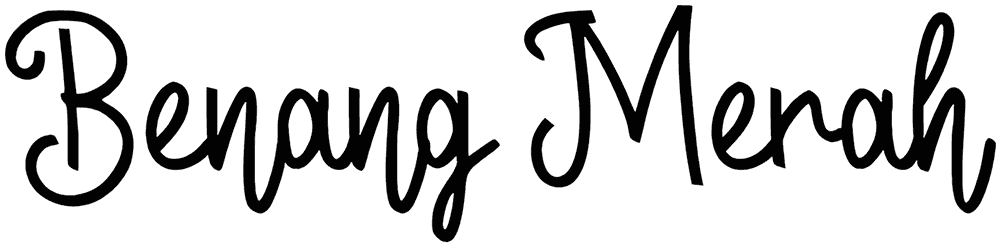
b Benang Merah Font
Designers still choose b Benang Merah for the classic yet modern feel it gives to creative projects. This handwritten font with elaborate twists can give your design projects a nostalgic and personal look. This script font works well everywhere and is an effective solution for immortalizing posters, personal letters, and wedding cards that adapt to different design styles.